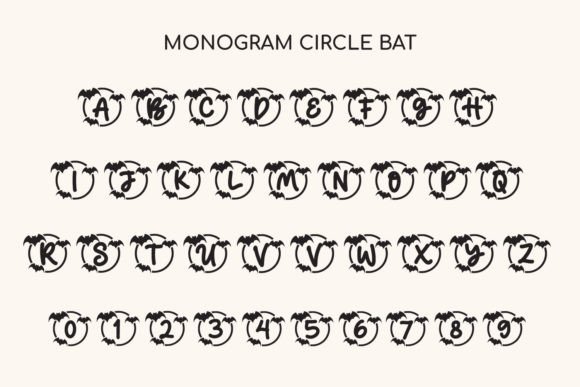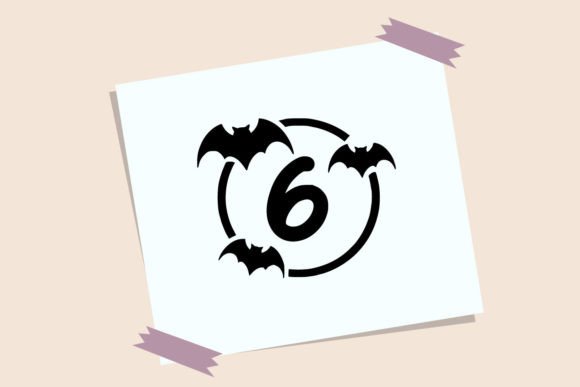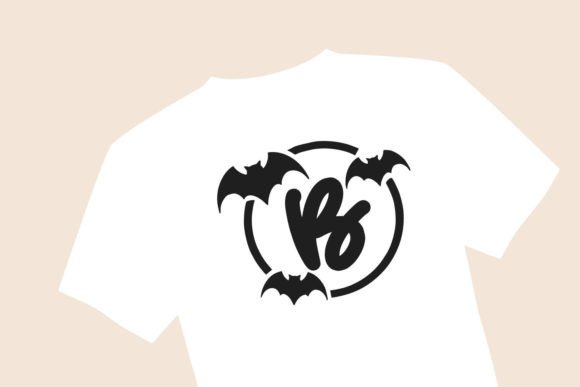
Introduction to Monogram Circle Bat Font
Monogram Circle Bat is a cute monogram font, perfect for your Halloween design themes or any project that needs a spooky monogram.
Key Features of Monogram Circle Bat Font
Why Choose Monogram Circle Bat Font?
Monogram Circle Bat Font offers exceptional quality and versatility, making it a valuable addition to your design toolkit. Whether you’re creating for personal projects or commercial use, Monogram Circle Bat Font delivers professional results.